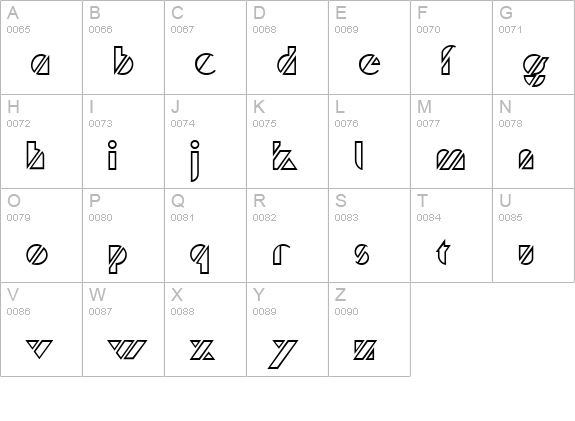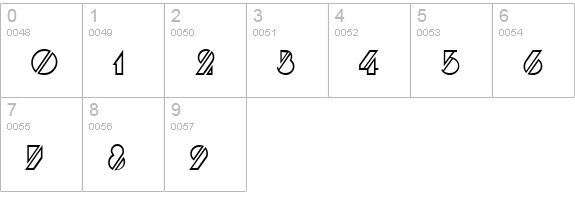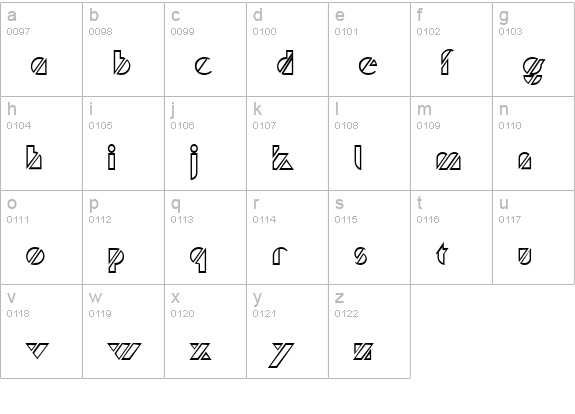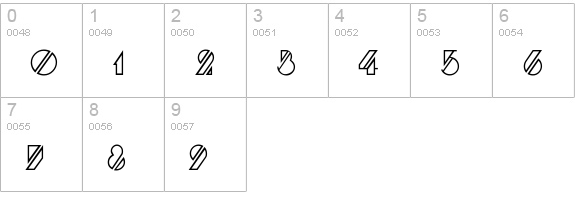
Introducing Trufflette, a beautifully crafted font that exudes elegance and sophistication. With its delicate curves and graceful strokes, Trufflette adds a touch of class to any design project. Whether you're creating wedding invitations, branding materials, or simply looking to add a touch of luxury to your personal projects, Trufflette is the perfect choice. What sets Trufflette apart is not only its stunning design but also its accessibility. This font is available for free download at FontsMarket.com, making it readily available to designers and enthusiasts alike. Embracing the spirit of inclusivity and creativity, Trufflette allows everyone to enjoy its captivating charm without any limitations. The versatility of Trufflette is truly remarkable. Its effortlessly flowing letters make it suitable for both headline and body text, ensuring that your message is conveyed with clarity and style. Each character is meticulously crafted, showcasing the attention to detail and dedication put into creating this remarkable font. Trufflette shines in both digital and print mediums, adapting flawlessly to various design applications. Its timeless appeal ensures that your designs will stand the test of time, leaving a lasting impression on your audience. From elegant logos to sophisticated event invitations, Trufflette effortlessly elevates every design it graces. So why wait? Download Trufflette today and witness the transformative power of this extraordinary font. Experience the pleasure of working with a font that seamlessly combines beauty and functionality. Let Trufflette inspire your creativity and help you achieve stunning results in your design projects. Remember, it's free and readily available for download at FontsMarket.com, so don't miss out on this incredible opportunity to enhance your designs with Trufflette's timeless charm.